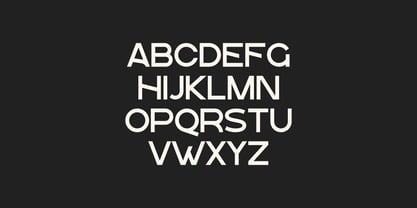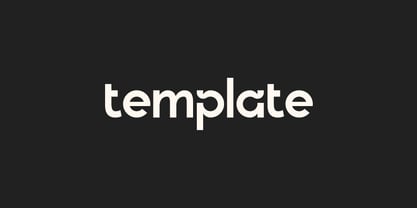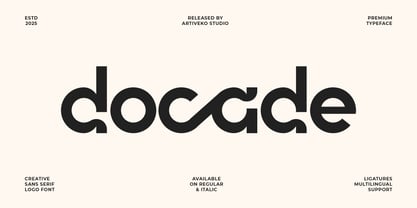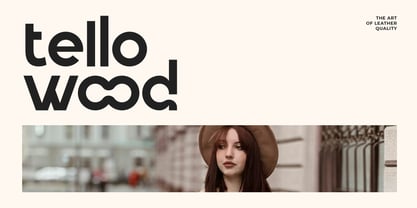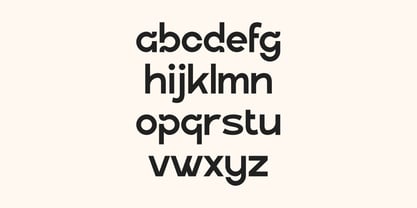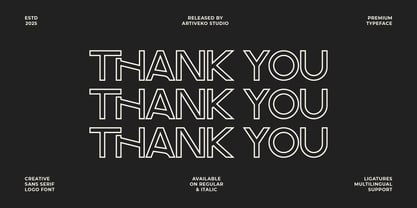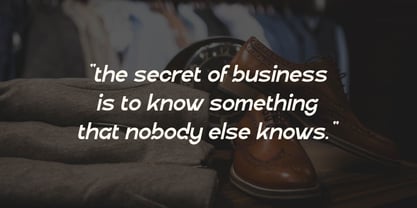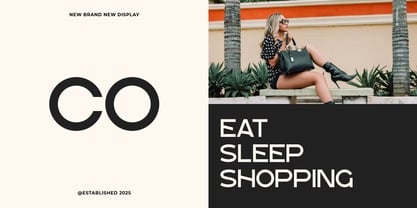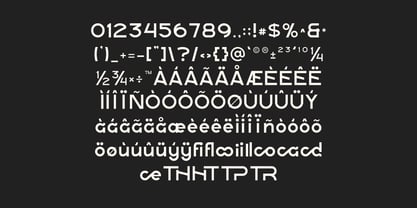
Docade
by Artiveko
Docade is a modern creative sans serif font designed to stand out with subtle quirks and clean precision. Featuring sleek lines, unexpected details, and a balanced geometric feel, Docade adds a fresh personality to any design. It’s perfect for branding, logos, posters, packaging, tech visuals, and editorial layouts that call for something stylish yet professional.
Crafted for visual impact and flexibility, Docade includes uppercase and lowercase characters, multilingual support, and a curated selection of ligatures and stylistic alternates. Whether you're going bold in headlines or subtle in subtext, Docade adapts easily while retaining its unique identity.
From modern startups to creative agencies, Docade brings a smart, confident tone to your typography. Let your work feel clean, contemporary, and creatively sharp — with Docade, the sans serif font that’s made to express originality.